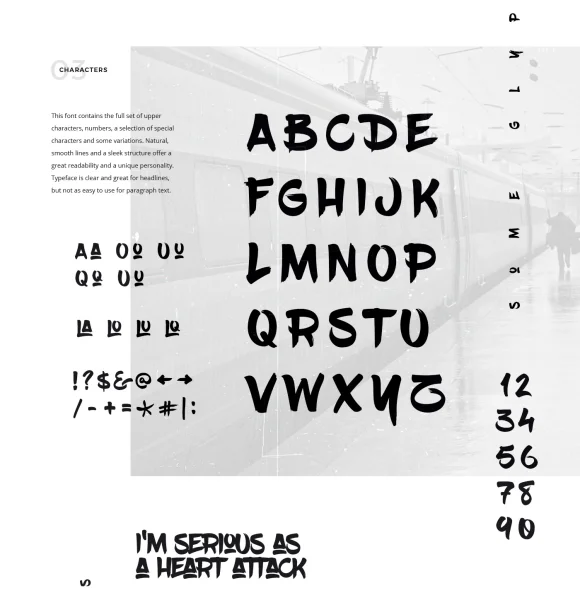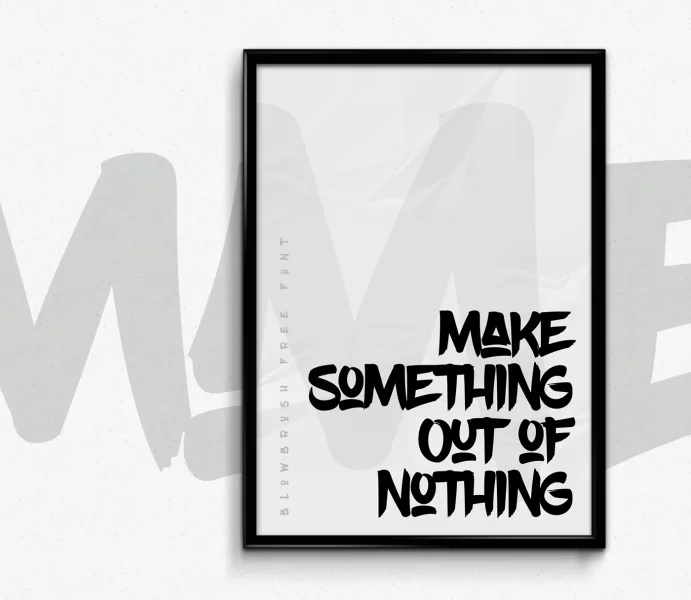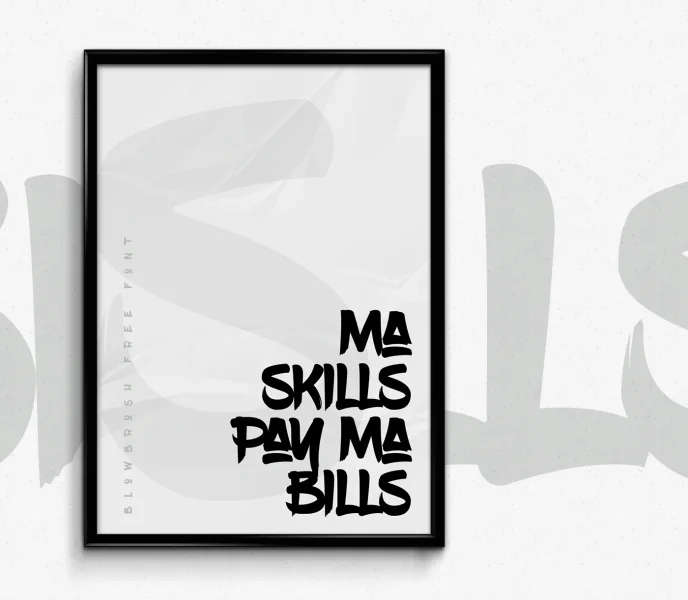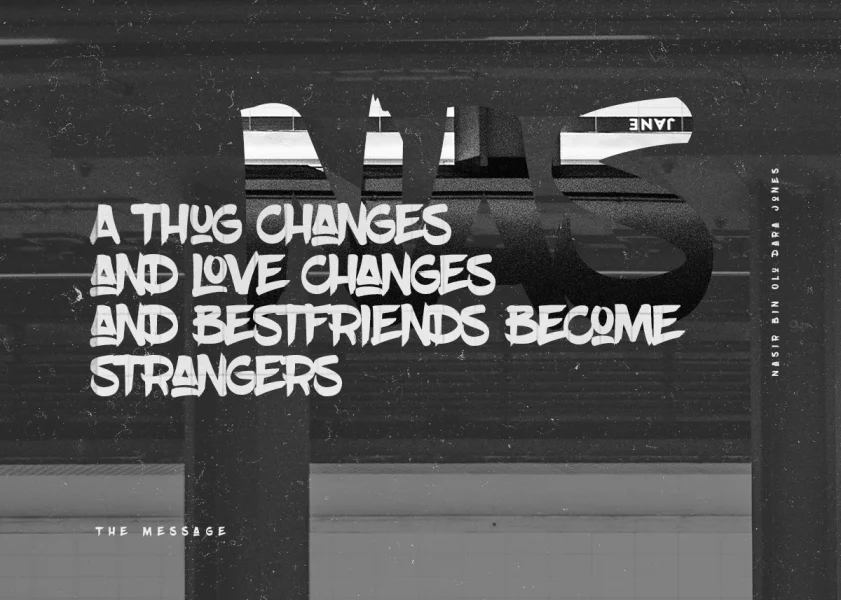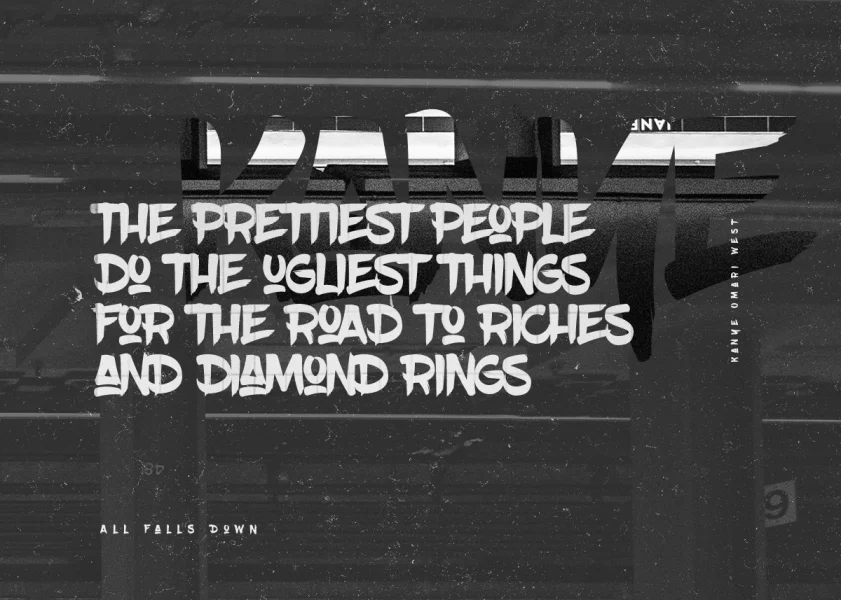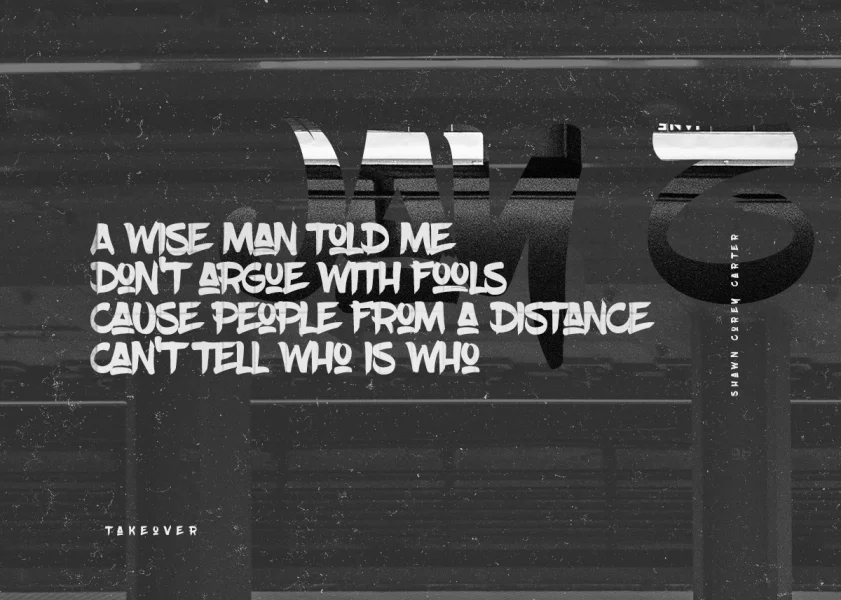
BlowBrush is a handwritten , marker style font with natural lines and edges that will give your text a unique character and a nice flow, thus making it look original. This font includes the full set of upper characters, numbers, 22 ligatures, a selection of special characters and some variations.